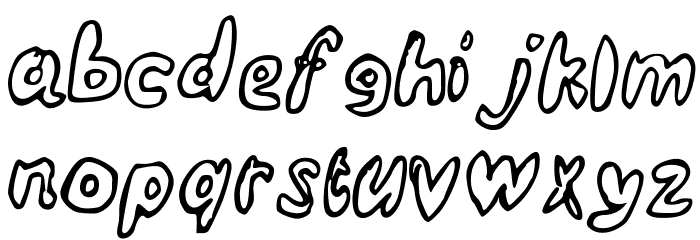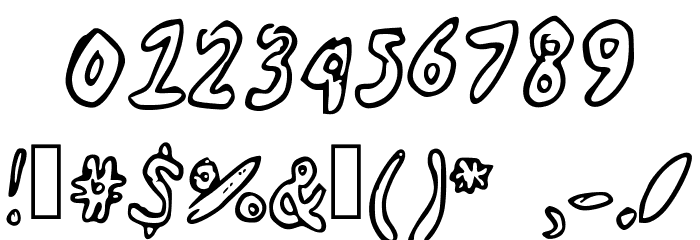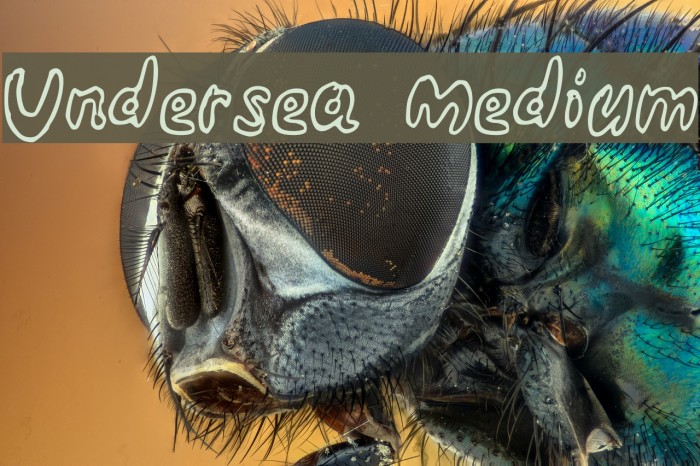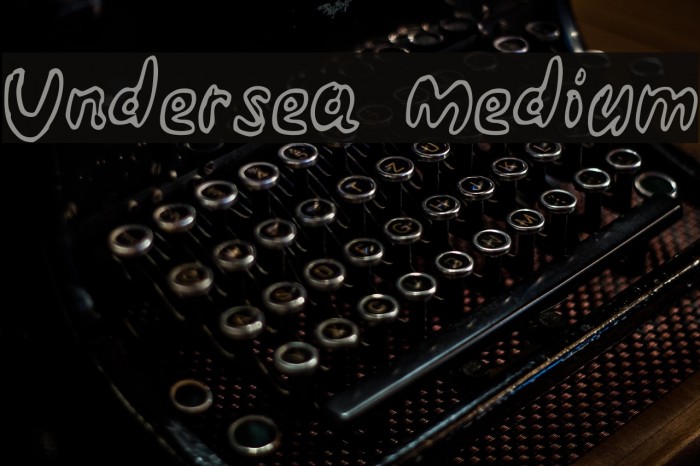
Undersea Medium Font
This playful and whimsical font features a bold, outlined style that gives each character a unique, hand-drawn appearance. The letters are rounded and slightly irregular, adding a sense of movement and energy. The uppercase and lowercase letters maintain a consistent style, with the lowercase being slightly more compact. Numbers and special characters follow the same playful design, making the font versatile for various creative projects. The overall look is reminiscent of underwater themes, with a bubbly and fun aesthetic that stands out.
A playful, outlined font with a hand-drawn, whimsical style.
- Proposed Projects: Ideal for children's books, playful branding, party invitations, and creative posters.
- Overall Style: Playful, Whimsical